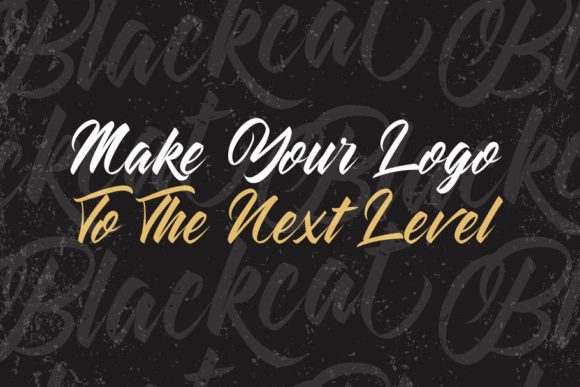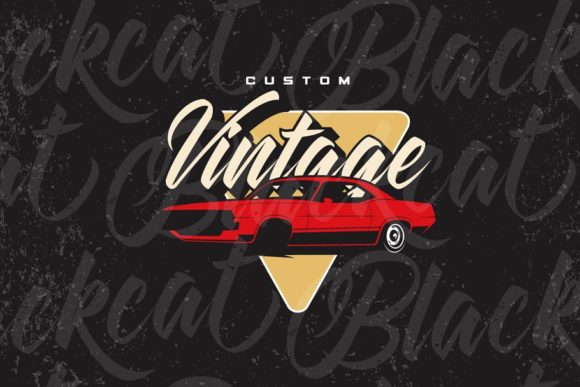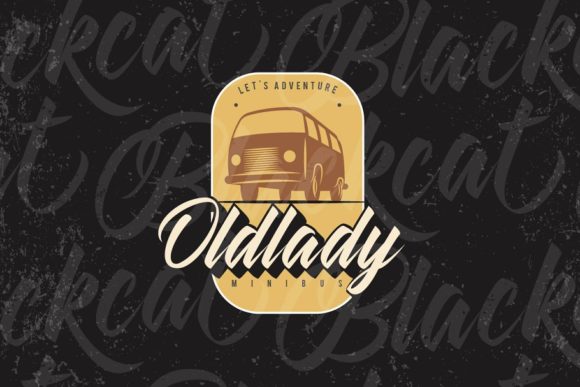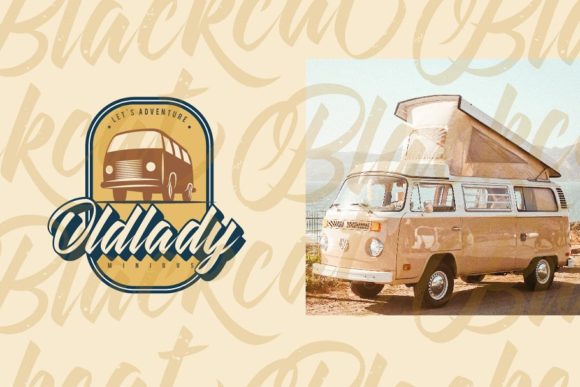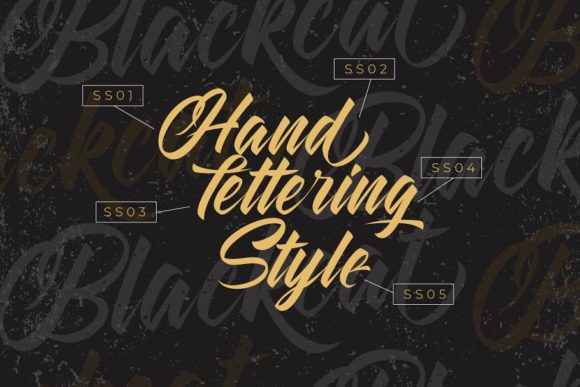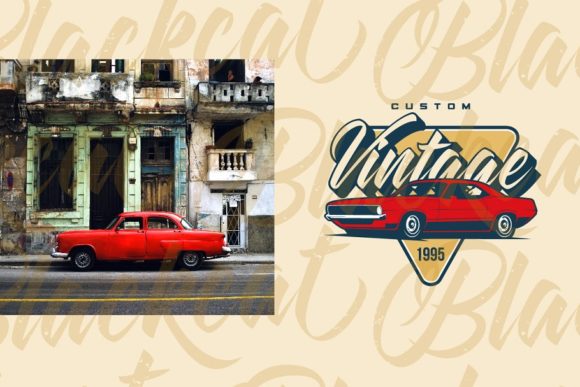
Introducing Blackcat Font: The Ultimate Retro Touch for Your Designs
Are you a designer or crafter looking to add a touch of nostalgia to your work? Look no further than Blackcat Font, a playfully nostalgic handwritten font that delivers an incredible vintage aesthetic. With Blackcat, you can add a special retro touch to any design idea you can think of, from branding and packaging to invitations and crafts.
The Charm of Blackcat Font
Blackcat Font is a unique and charming handwritten font that is sure to capture the hearts of designers and crafters alike. Its playful and nostalgic feel is reminiscent of a bygone era, evoking memories of childhood and simpler times. The font’s irregularities and quirks add to its charm, giving it a distinctly human and handcrafted feel.
Uses for Blackcat Font
Blackcat Font is incredibly versatile and can be used for a wide range of design projects. Here are just a few ideas to get you started:
• Branding and Packaging: Add a touch of nostalgia to your brand’s packaging and marketing materials with Blackcat Font. It’s perfect for creating vintage-inspired labels, logos, and advertisements.
• Invitations and Stationery: Create unique and eye-catching invitations, greeting cards, and stationery with Blackcat Font. It’s perfect for weddings, birthday parties, and other special occasions.
• Crafts and DIY Projects: Blackcat Font is a great addition to any crafter’s toolkit. Use it to add a personal touch to handmade crafts, such as knitting patterns, sewing projects, and scrapbooking.
• Digital Design: Blackcat Font can also be used for digital design projects, such as social media graphics, blog headers, and website design.
Why Choose Blackcat Font?
So why choose Blackcat Font over other fonts? Here are just a few reasons:
• Unique and Playful: Blackcat Font has a unique and playful feel that sets it apart from other fonts. Its irregularities and quirks add to its charm, making it perfect for designers and crafters who want to add a personal touch to their work.
• Vintage Aesthetic: Blackcat Font delivers an incredible vintage aesthetic that is sure to evoke memories of childhood and simpler times. It’s perfect for designers and crafters who want to create a retro-inspired look.
• High-Quality: Blackcat Font is a high-quality font that is designed to deliver exceptional results. It’s perfect for designers and crafters who want to create professional-looking work.
Tips for Using Blackcat Font
Here are a few tips for using Blackcat Font:
• Pair it with Other Fonts: Blackcat Font looks great when paired with other fonts. Try pairing it with a sans-serif font for a bold and modern look, or with a script font for a more elegant and sophisticated look.
• Experiment with Colors: Blackcat Font looks great in a wide range of colors. Try experimenting with different colors and color combinations to find the perfect look for your design.
• Use it for Headlines and Titles: Blackcat Font is perfect for headlines and titles. Use it to add a touch of nostalgia and personality to your design.
Blackcat Font is a unique and charming handwritten font that delivers an incredible vintage aesthetic. Its playful and nostalgic feel makes it perfect for designers and crafters who want to add a special retro touch to their work. With its ease of use, high-quality design, and versatility, Blackcat Font is a must-have for any designer or crafter looking to create professional-looking work with a personal touch.